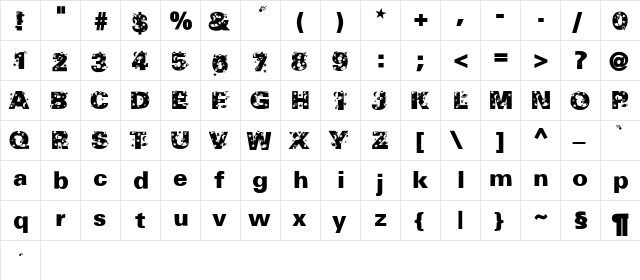
Planetz Medium
Design Context for Planetz Typeface
Planetz is a composed and adaptable typeface that performs quietly and consistently across a wide range of design contexts.